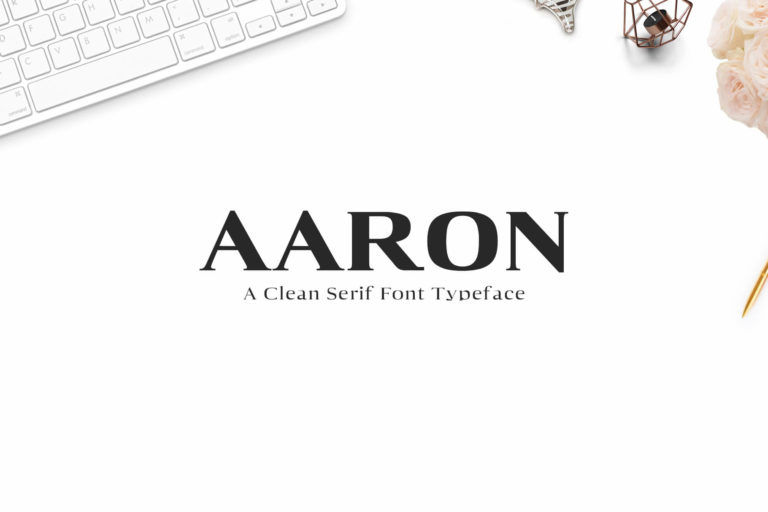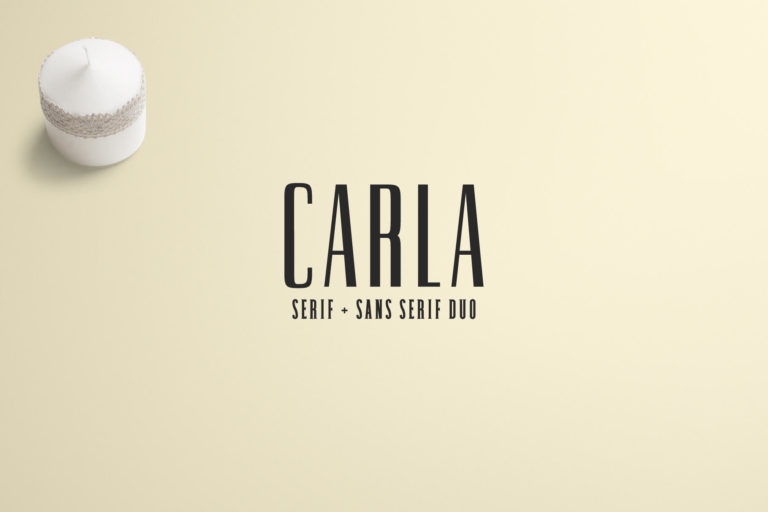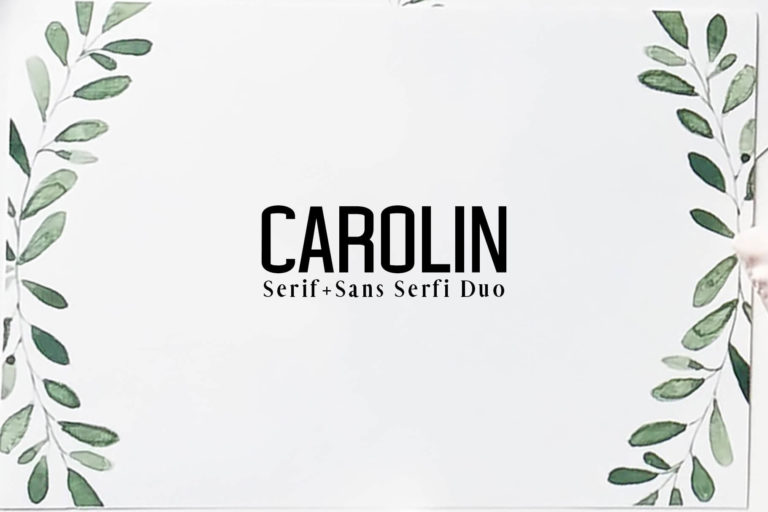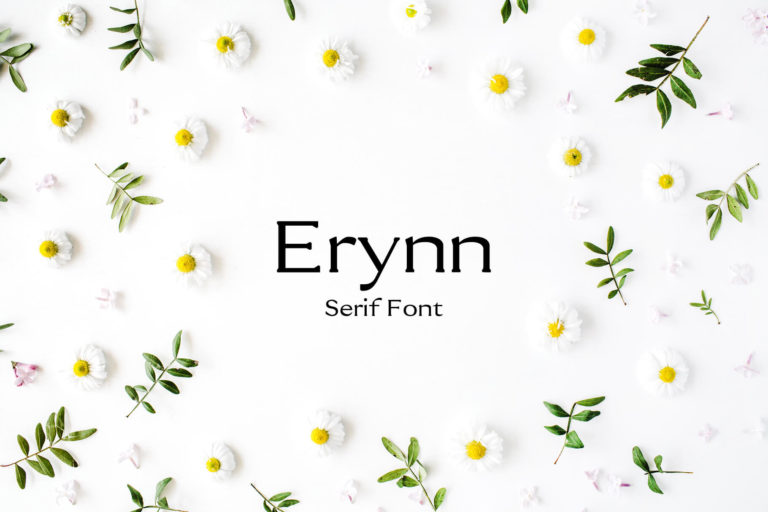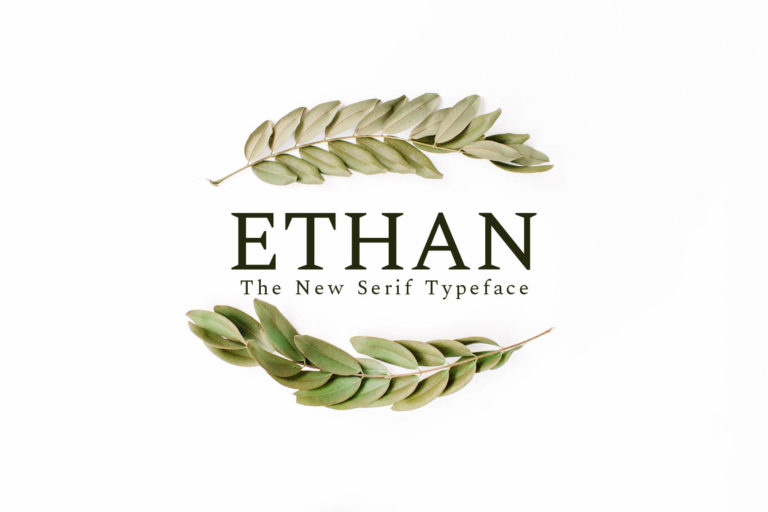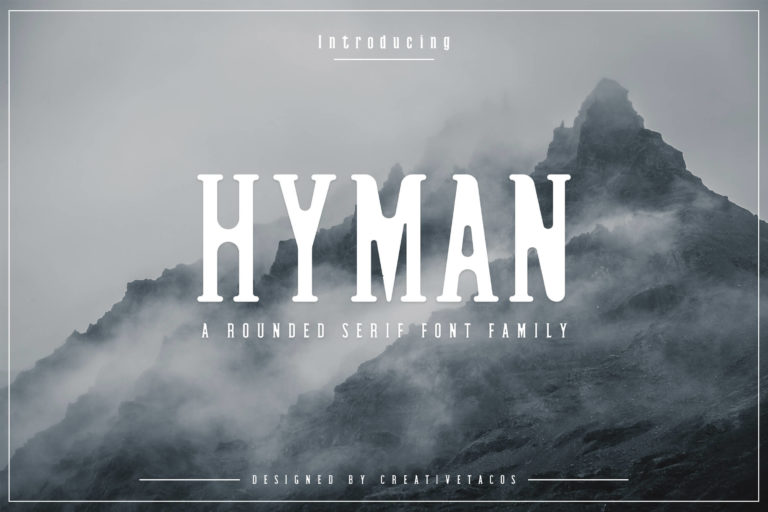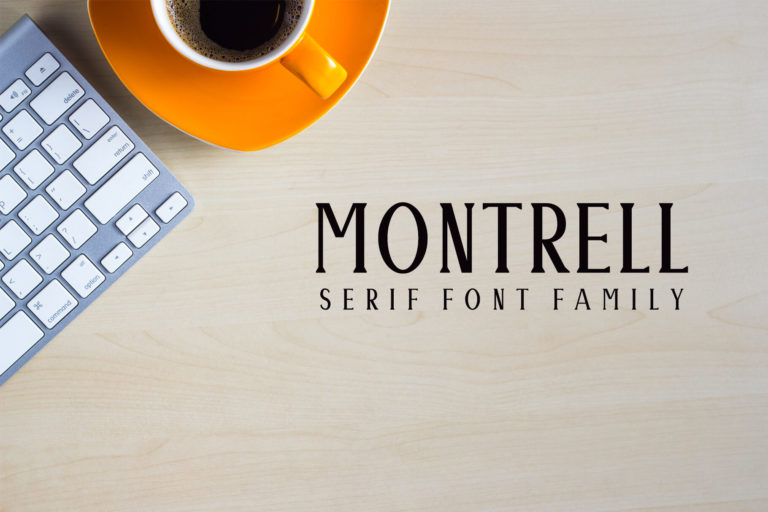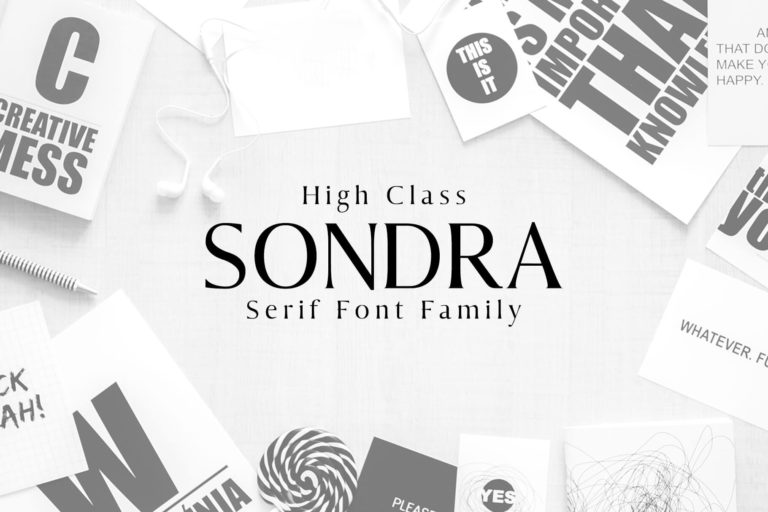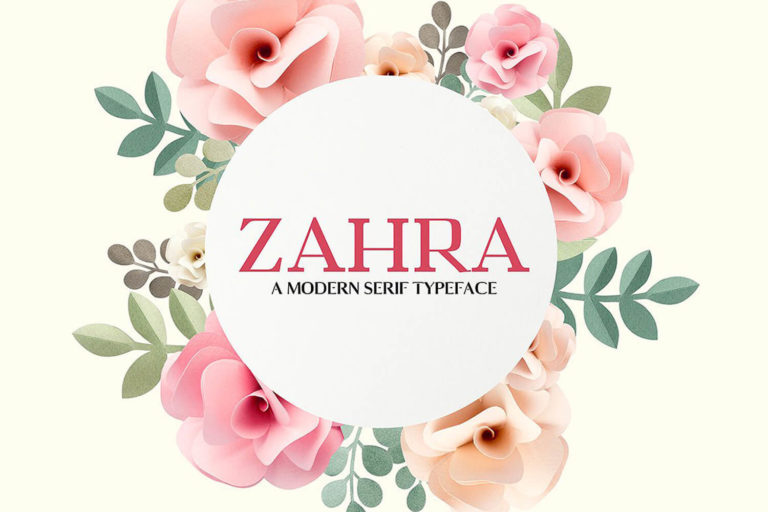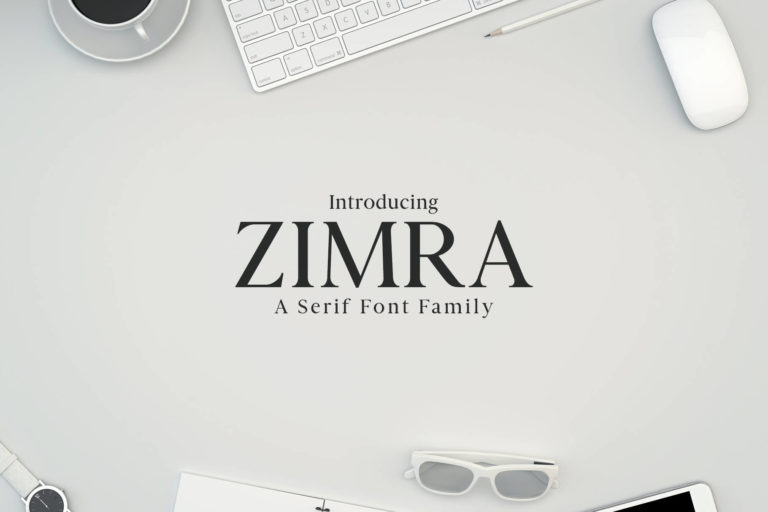
15 The Best Serif Fonts For Classic Fashion Logos
Are you working on a fashion logo? Check out these serif fonts! If you’re looking for something elegant and timeless, these fonts are perfect. Serif fonts have a classic look that adds trust and style to any brand. They can help your fashion logo stand out and leave a lasting impression.
Why use Serif fonts for Fashion logos
Serif fonts have small lines at the ends of the letters, making them look fancy and traditional. They are great for fashion logos because they show elegance and quality. These fonts aren’t just old-fashioned; they add a classy and professional touch to your brand. Using serif fonts makes your logo memorable and appealing.
1. Aaron Serif Font Family
Aaron Serif Font Family is a modern and clean rounded serif font with multilingual support. It’s a very versatile font that works great in large and small sizes. Aaron is perfect for branding projects, home-ware designs, product packaging, logo, greeting cards, quotes, posters, branding, name card, stationary, design title, blog header, typography, wedding invitations, magazine headers, or simply as a stylish text overlay to any background image.
Aaron Serif Font Family
2. Carla Serif and Sans Duo Font Family Pack
Carla Serif + Sans Serif Duo Font Family Pack features unique and modern serif look and feel. Perfect for gorgeous logos, titles, web layouts and branding. It looks gorgeous in all caps with a wide-set spacing if you want to try a classy look, or beautiful on its own in capital and lowercase letters for something completely timeless.
Carla Serif and Sans Duo Font Family Pack
3. Carolin Duo Font Family Pack
Carolin Serif + Sans Serif Duo Font Family Pack delivers an extraordinary unique typeface, let you create more impression with your design. Perfect for gorgeous logos, titles, web layouts and branding. It looks gorgeous in all caps with a wide-set spacing if you want to try a classy look, or beautiful on its own in capital and lowercase letters for something completely timeless.
Carolin Duo Font Family Pack
4. Ethan Serif Font Family Pack
Perfect for gorgeous logos & titles, layouts & content, or large & small scale, It looks gorgeous in all caps with a wide-set spacing if you want to try a classy look, or beautiful on its own in capital and lowercase letters for something completely timeless.
Ethan Serif Font Family Pack
5. Erynn Serif Font
Erynn Serif Font is a clean minimal single font, It features unique and modern serif look and feel. Perfect for gorgeous logos, titles, web layouts and branding. It looks gorgeous in all caps with a wide-set spacing if you want to try a classy look, or beautiful on its own in capital and lowercase letters for something completely timeless.
Erynn Serif Font
6. Jotham Serif Typeface
Jotham Serif Typeface is a clean and beautiful serif font family, which contains 4 weights and It features unique and modern serif look and feel. Perfect for gorgeous logos, titles, web layouts and branding.It looks gorgeous in all caps with a wide-set spacing if you want to try a classy look, or beautiful on its own in capital and lowercase letters for something completely timeless.
Jotham Serif Typeface
7. Maaz Serif Typeface
Maaz is the perfect typeface to create sleek and elegant logo designs and headlines and. It pairs well with both script and sans-serif fonts and features multiple weights.
Maaz Serif Typeface
8. Maddex Serif Font Family
Maddex Serif Premium Font Family is a decorative serif font family, which contains 3 weights and It features unique and modern serif look and feel. Perfect for gorgeous logos, titles, web layouts and branding. It looks gorgeous in all caps with a wide-set spacing if you want to try a classy look, or beautiful on its own in capital and lowercase letters for something completely timeless.
Maddex Serif Font Family
9. Sondra Serif Typeface
Sondra Serif Typeface is minimalist and beautiful serif font family of 6 weights and it features unique and modern serif look and feel. Perfect for gorgeous logos & titles, layouts & content, or large & small scale, It looks gorgeous in all caps with a wide-set spacing if you want to try a classy look, or beautiful on its own in capital and lowercase letters for something completely timeless.
Sondra Serif Typeface
10. Zimra Serif Font Family
Zimra Serif Font is a set of 5 weights font family and it is good for making creative displays and it has unique and modern serif layout. It Suits best for modern / clean designs, logos, headlines, banners and templates etc. It looks gorgeous in all caps with a wide-set spacing if you want to try a classy look, or beautiful on its own in capital and lowercase letters for something completely timeless.
Hyman is a modern and minimalist rounded serif typeface with slab serif look. It comes with 4 weights: Regular, Light and Bold, which contains uppercase and lowercase alphabet, numbers, basic punctuation with multilingual support. This font will pair beautifully with the script, signature or handwriting style. Hyman can be used for headlines, posters, branding, packaging, presentations, logo, quotes, titles, magazines headings, web layouts, advertising, invitations, packaging design, books, and nearly any creative design.
Hyman Rounded Serif Font Family